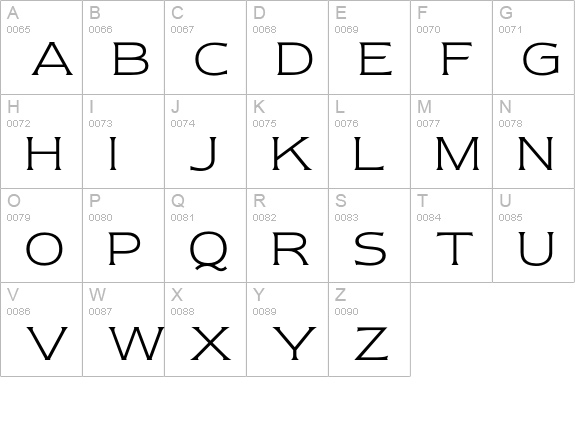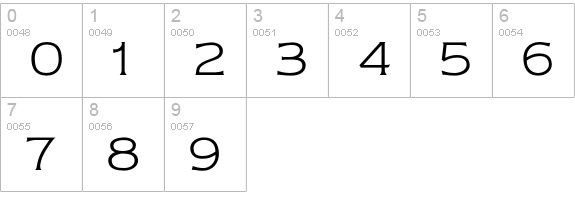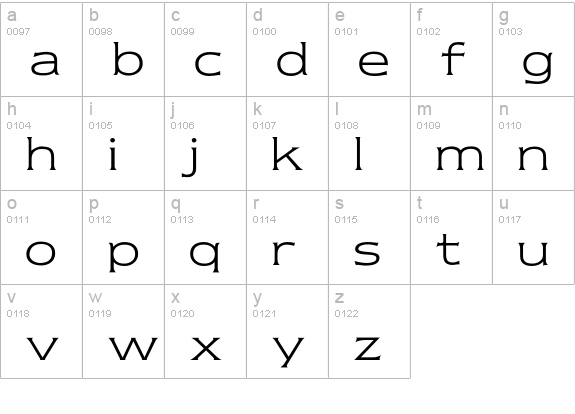
NewtextLight Font Details
NewtextLight is a modern and elegant font that exudes sophistication and professionalism. Its sleek lines and gentle curves make it perfect for a wide range of design projects, from logos to branding materials to web design. The light weight of this font adds a delicate touch, making it ideal for conveying a sense of refinement and subtlety. And the best part? NewtextLight is available for free download at FontsMarket.com. This means you can elevate your designs with this beautiful font without spending a dime. Don't miss out on the opportunity to enhance your projects with the timeless charm of NewtextLight. Download it today and see the difference it can make in your creative endeavors.